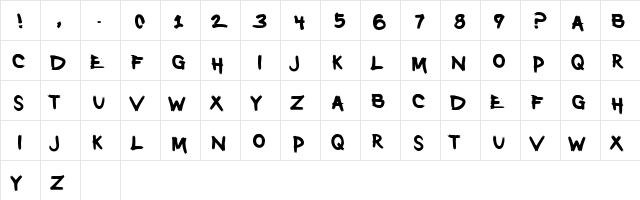
Golf Club Homicide Regular
| Foundry | Font Monger |
| Designer | Chris Vile |
Design Context for Golf Club Homicide Typeface
Golf Club Homicide is a composed and adaptable typeface that performs quietly and consistently across a wide range of design contexts.